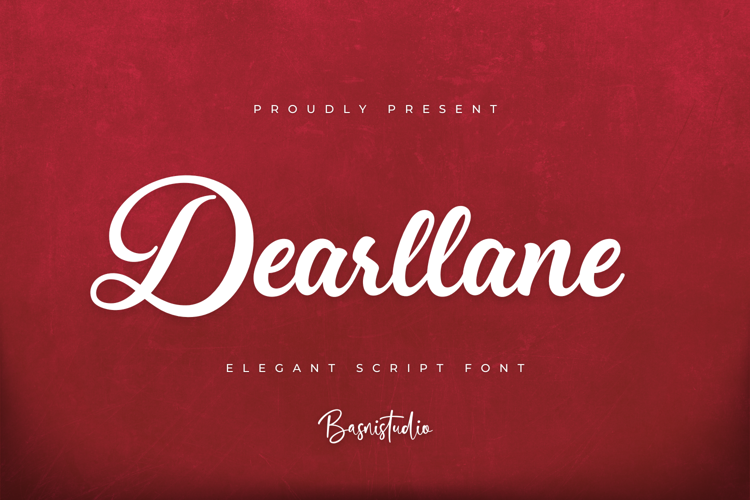
Dearllane Font
INTRODUCING Dearllane Elegant Script Font
Dearllane is Elegant Script that adds a elegant, versatile touch to everything from branding and social media to invitations and packaging.